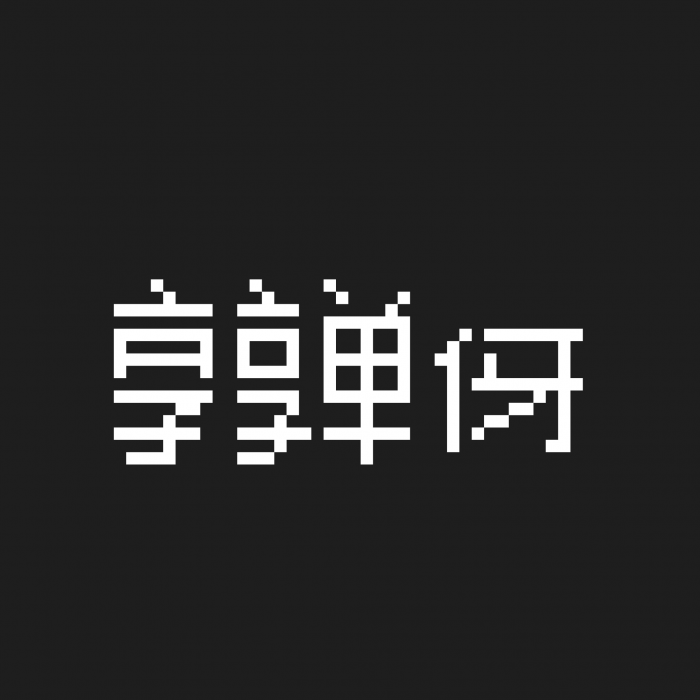
Chinese Font Not Supported will 4E00 through 4F60, SAMPLE TEXT:享亸伢 Will Chinese Pixel.
Why is there suddenly a glut of Unicode fonts with terrible quality, like this? And why are they all made by people who capitalise every word?